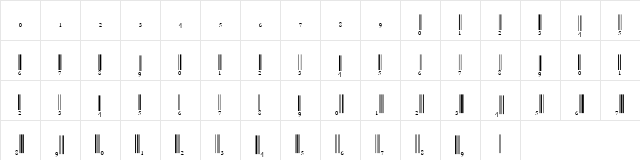
EAN-13B Half Height Regular
Design Context for EAN-13B Half Height Typeface
EAN-13B Half Height is a composed and adaptable typeface that performs quietly and consistently across a wide range of design contexts.